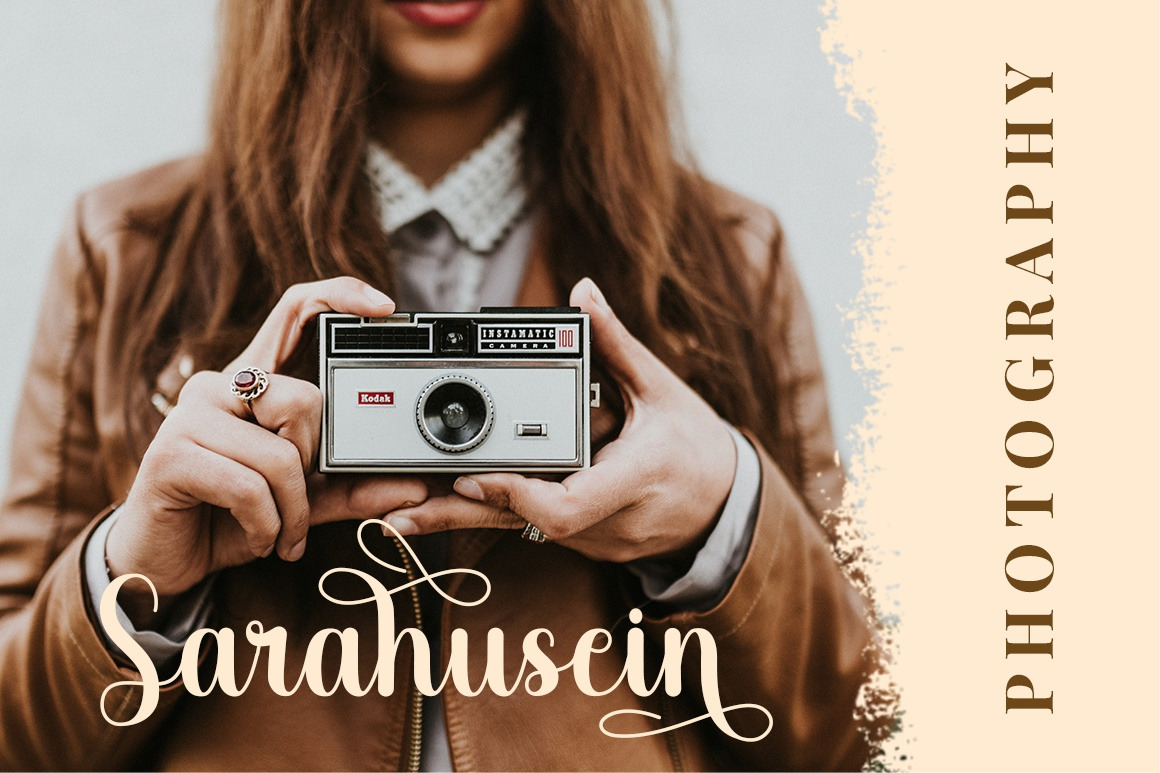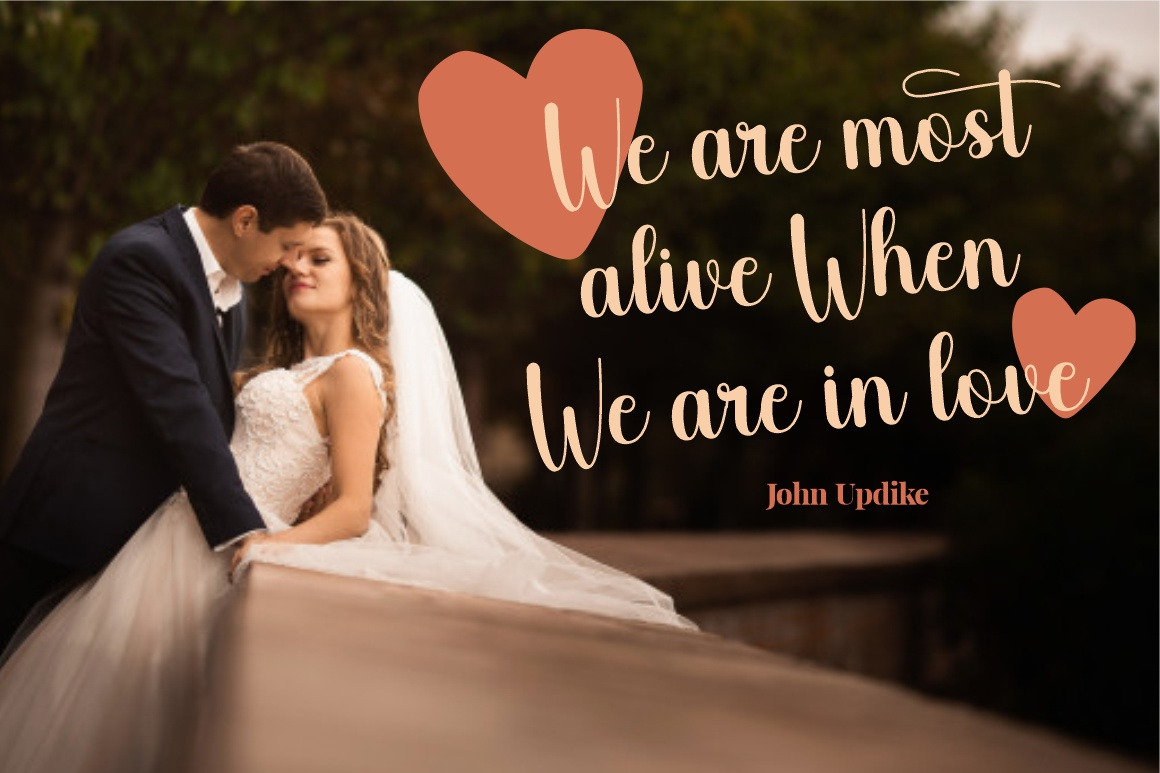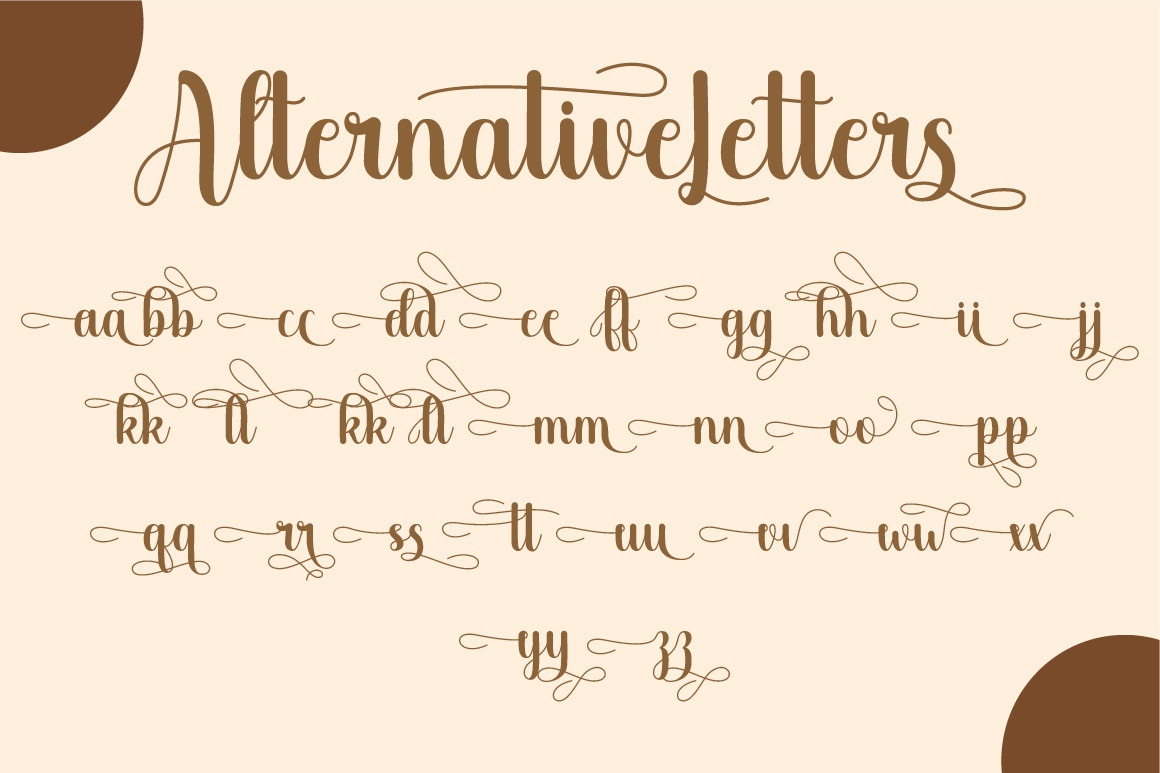
Hello Audrey - Modern Script Font
Hello Audrey is a modern script and wedding font. This font is feminime, elegant, messy and modern.
Hello Audrey perfect for wedding event, anniversary, birthday,greeting cards, logotype, branding, wedding invite and card, elegant logo, poster, packaging, stationery, website, and any other projects requiring a handwritten and luxurious touch.
Come with open type feature with a lot of alternates, its help you to make great lettering.
This font is also support multi language.
- Alternate
- Number, Punctuation And Symbols
- Multilanguage Support.